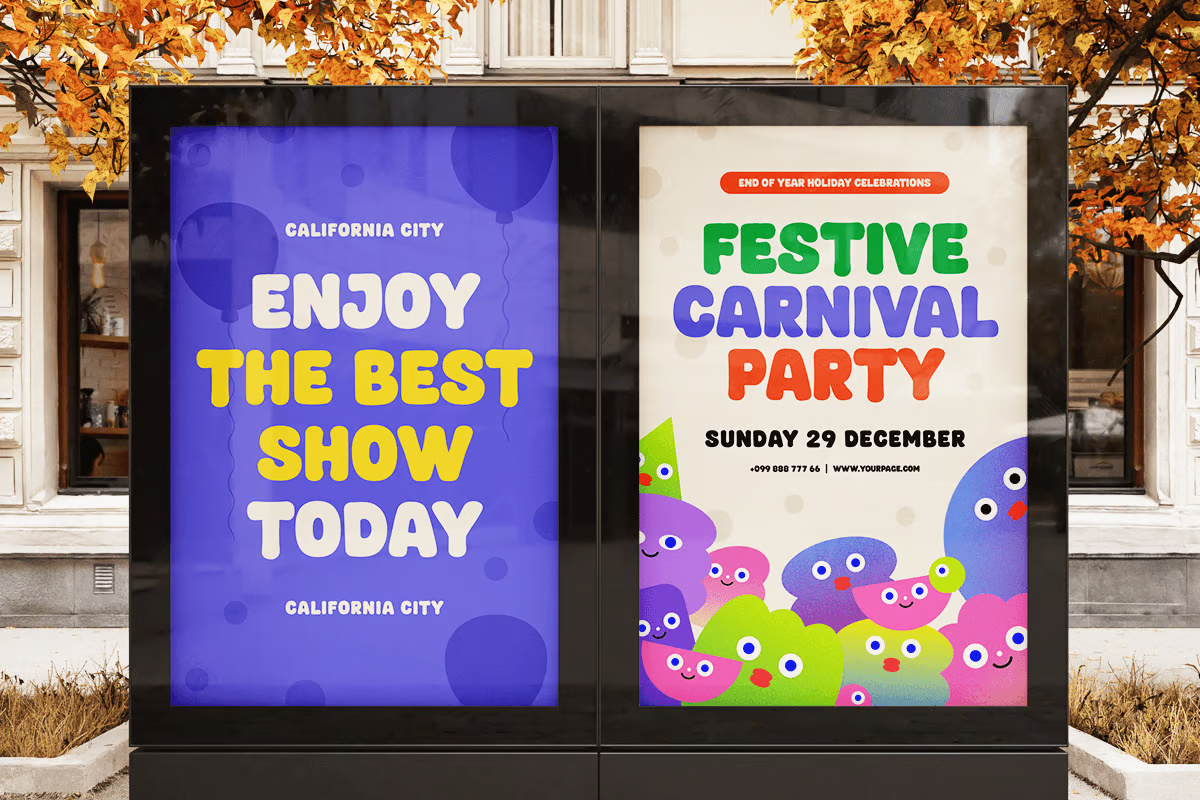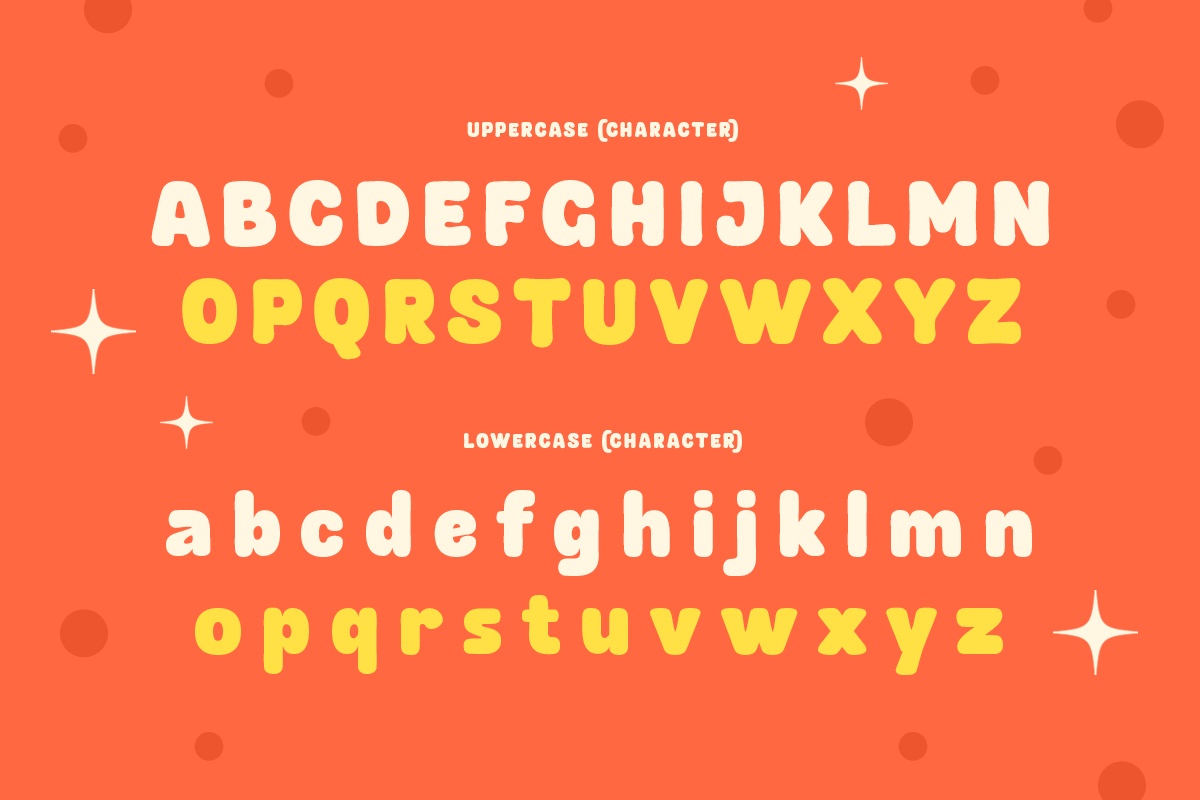
Anabele is a fun and quirky kids’ font designed to bring joy, laughter, and creativity to your projects! With its bubbly shapes, playful curves, and friendly letterforms, this font is perfect for children’s books, school projects, toy packaging, birthday invitations, cartoons, and fun branding.
Designed to spark imagination, Anabele is full of energy and happiness, making it ideal for any project that needs a lighthearted and joyful touch. Whether you’re working on educational materials, posters, or game titles, this font will add a sense of fun and excitement to your designs.
Anabele Kids Funny Sans-Serif Font